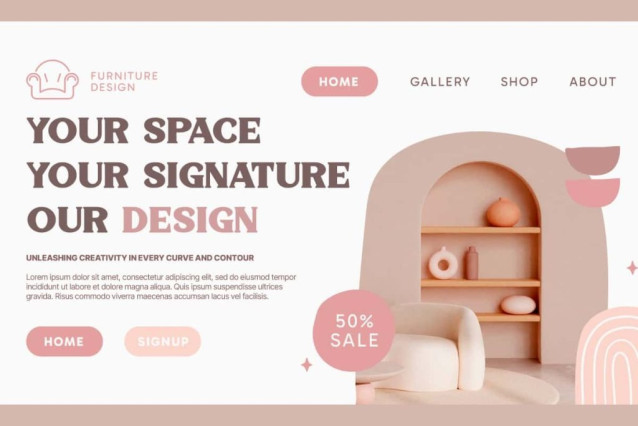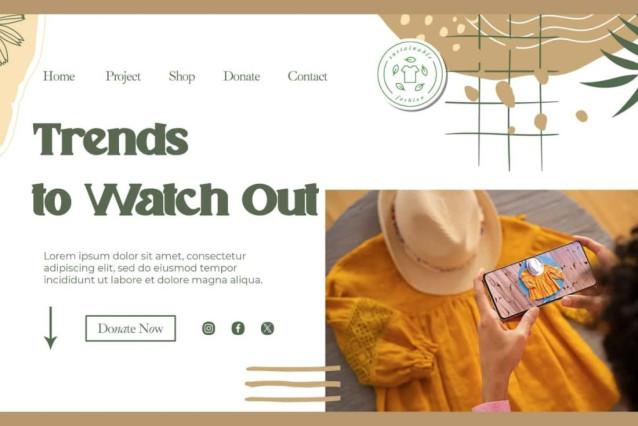
Menyala Font
Menyala Font is a fun yet strong display font that is specifically designed to give a new feel to the serif type. Perfect for banners, billboard, blogs, brand logo, brochure, covers, headline, label, mockup, packaging, poster, printed materials, quotes, stickers, titles, template, website, and more.
Menyala Font includes full set of Uppercase and Lowercase Basic Characters, Numbers, Punctuation, and Symbols. This perfect font will be very useful in any creative design that wants to have a harmonious and stylish feel. It will be very suitable for advertising, apparel, fashion, graphic design, handicraft, interior design, home furniture, printing, publishing, web designer, etc.